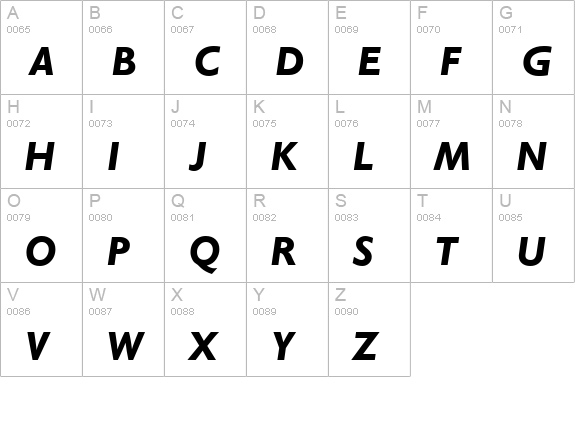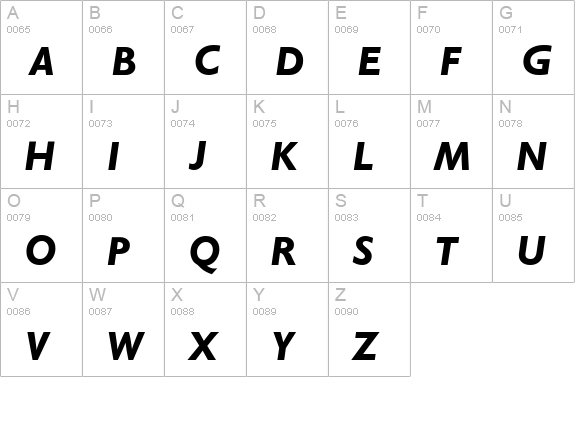
The Gibson-BoldItalic font is a stylish and modern typeface that exudes sophistication and elegance. With its bold yet italicized design, this font is perfect for adding a touch of flair to your projects. The sleek lines and unique curves of the characters make the Gibson-BoldItalic font stand out and capture attention. What makes the Gibson-BoldItalic font even more appealing is that it is available for free download at FontsMarket.com. This means you can easily access this beautiful font and use it in your designs without any cost. Whether you're working on a professional project or a personal creative endeavor, the Gibson-BoldItalic font is sure to elevate your work and make a lasting impression.